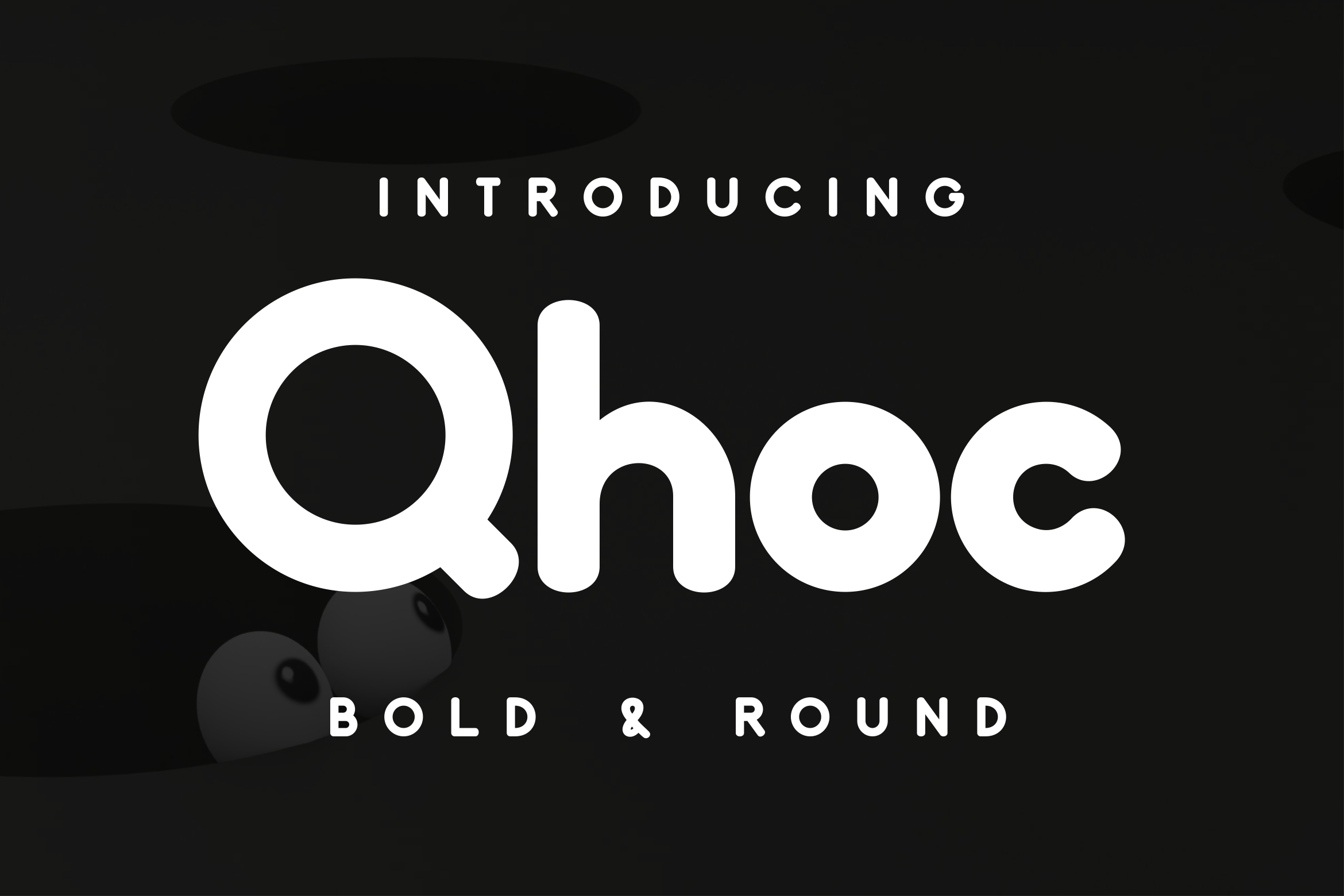
Qhoc Rounded Font
Meet Qhoc, a bold and dynamic serif font crafted for impactful design projects. With its modern yet timeless style, Qhoc is perfect for branding, logos, editorial designs, and social media graphics. Its versatility ensures that it fits seamlessly into any creative endeavor, helping your work stand out with sophistication and confidence.